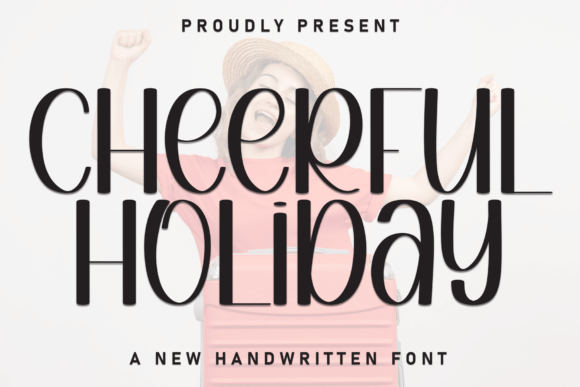
Unwrapping the Magic of Cheerful Holiday Font
As a designer, there’s nothing quite like the thrill of discovering a new font that sparks creativity and sets the tone for a project. For me, it was the moment I stumbled upon Cheerful Holiday Font – a charming, hand-drawn display typeface that instantly brightened up my day. Its whimsical charm and playfulness have a way of putting a smile on your face, making it the perfect addition to any design that requires a dash of joy and elegance.
Cheerful Holiday Font is more than just a font – it’s a way to infuse your designs with warmth and welcome. Whether you’re crafting wedding invitations or greeting cards, this exuberant typeface is sure to add a touch of geniality to your work. As a designer, it’s invaluable to have a font that can evoke the perfect balance of friendship and joy, making Cheerful Holiday Font an essential tool in your creative arsenal.
Cheerful Holiday Font Key Features
- Font Family: Cheerful Holiday Font
- Unique Characteristics: Hand-drawn illustrations and ornaments, perfect for festive designs and holiday-themed projects
Designer Review: Cheerful Holiday Font
I recently had the chance to work with the “Cheerful Holiday Font” and I must say, it’s a delightful addition to any holiday-themed design project. ✨ Here are a few things that I think really shine:
- It’s incredibly versatile – it works well for everything from posters to greeting cards, and even website headers.
- The font is super festive without being too over-the-top – perfect for brands that want to get into the holiday spirit without going too far.
- It’s a great choice for designers who want a font that’s both fun and elegant at the same time.
- The font may not be the best choice for body text, as it can be a bit overwhelming for large blocks of text.
- It’s not suitable for formal or corporate designs – it’s definitely more suited to casual, creative projects.
Overall, I think the “Cheerful Holiday Font” is a great addition to any designer’s toolkit. It’s a fun, festive font that’s perfect for getting into the holiday spirit. Just be aware of its limitations and use it accordingly. With a little creativity, it can really shine in the right projects.
Tips for Getting the Most Out of Cheerful Holiday Font
For the best results, use Cheerful Holiday Font in combination with bright and bold colors. You can also experiment with different font sizes and styles to create visual interest.
Cheerful Holiday Font is perfect for creating festive holiday designs, such as Christmas cards, party invitations, and social media graphics. You can also use it to add a touch of whimsy to your branding and marketing materials.
Pacifico is a beautiful, handwritten font that’s perfect for creating a beachy, laid-back atmosphere. It’s ideal for use in summer-themed designs, holiday cards, and other designs that evoke a sense of relaxation and leisure. Compared to Cheerful Holiday Font, Pacifico has a more organic and natural feel, making it a great choice for designers who want to convey a sense of calm and serenity.
Is the Cheerful Holiday Font suitable for digital signage or large-scale displays?
Yes, the Cheerful Holiday Font is optimized for digital use and can be easily scaled up for large-scale displays. However, please note that font quality may degrade at extremely large sizes. We recommend using font rendering software or services to ensure optimal display quality.